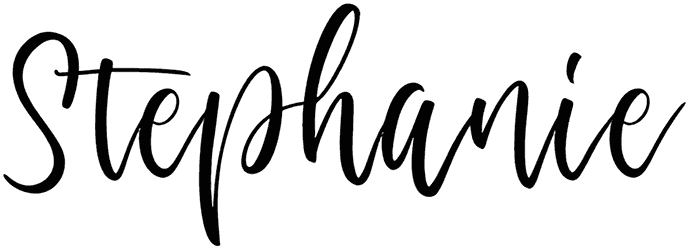
Stephanie Font
Display softness and elegance in your work with Stephanie, a beautiful calligraphy font that comes with a full set of characters. It is crafted so well, making your design look realistic, friendly, and attractive.
This font is not easy to read, but it can be used in a wide range of applications, especially feminine projects. In general, it is ideal for wedding invitations, book covers, branding, watermarks, and romantic writing.